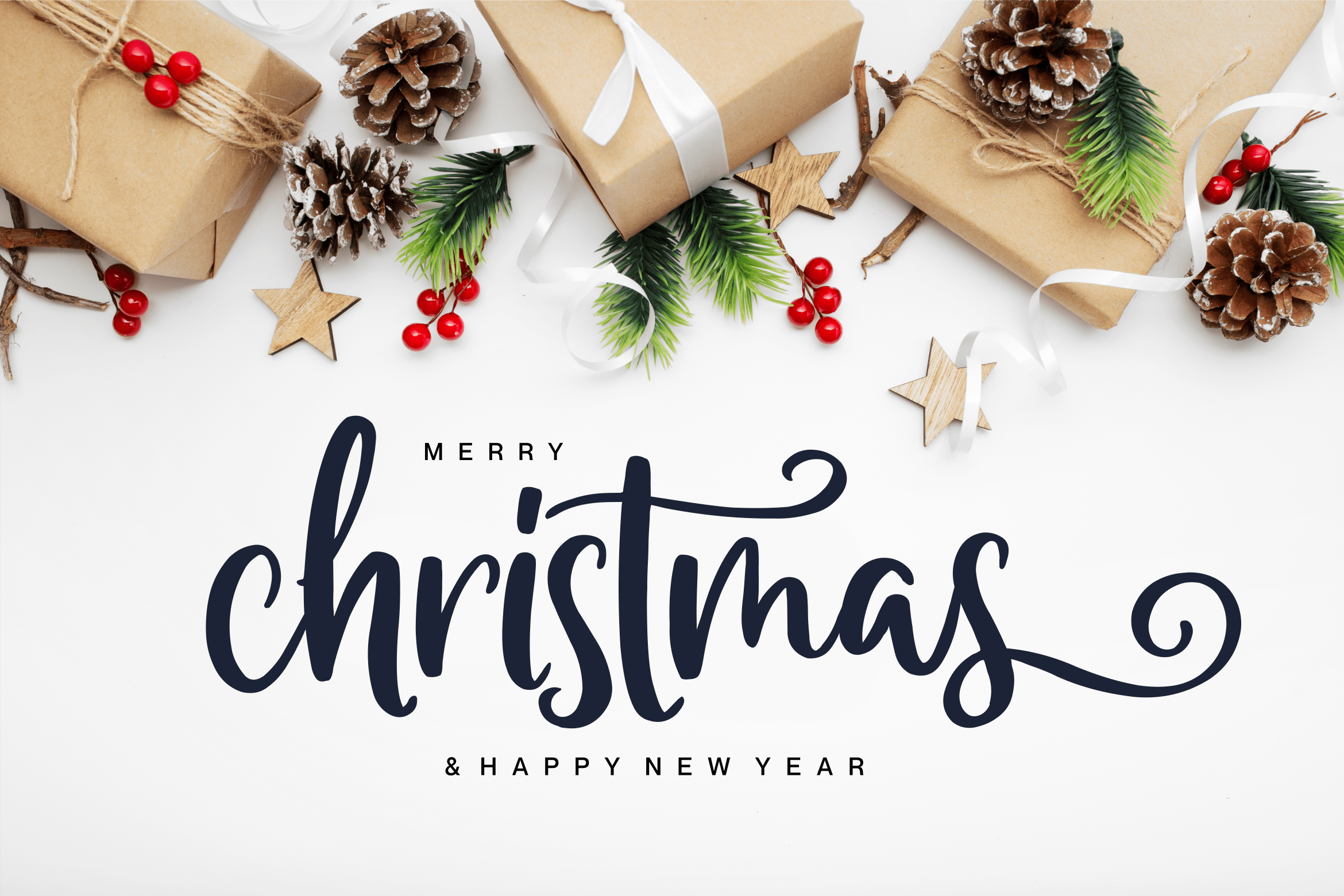
Jolystmas Script Font
It\’s a festive and sweet calligraphy typeface with characters that dance along the baseline. It will add a luxury spark to any design project that you wish to create! This font is PUA encoded which means you can access all glyphs and swashes with ease!